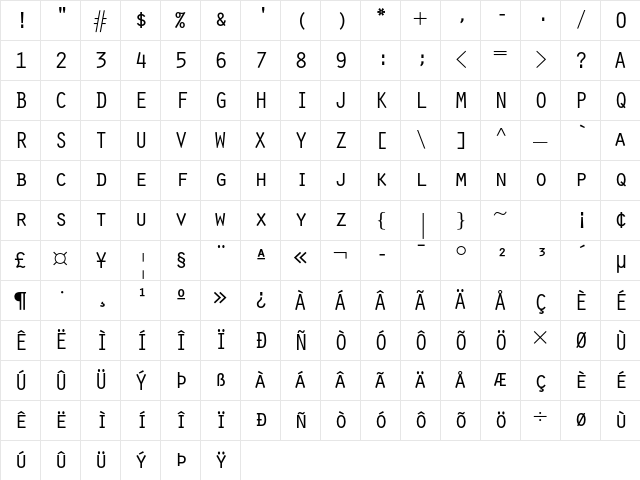
Complete Orator Std Medium glyph index. Displaying only characters natively supported by Orator Std Medium font.
Orator Std is a composed and adaptable typeface that performs quietly and consistently across a wide range of design contexts.